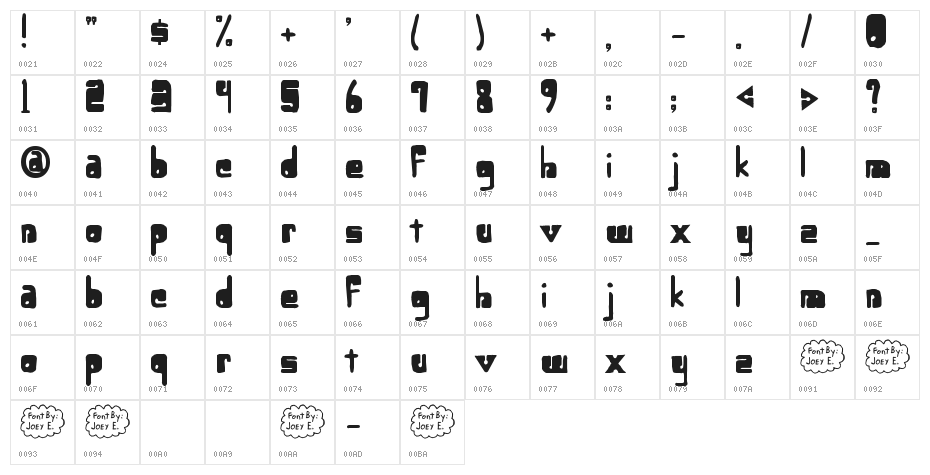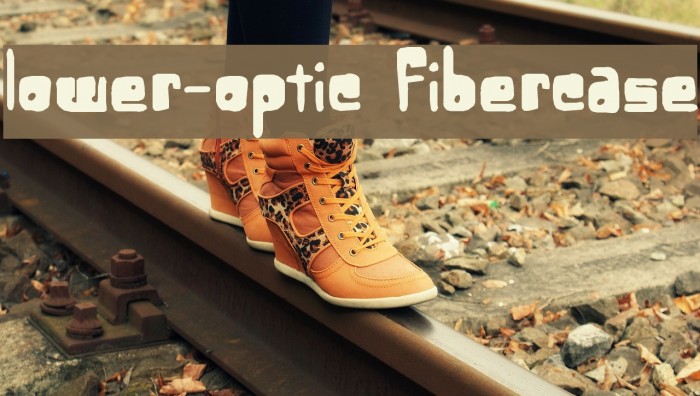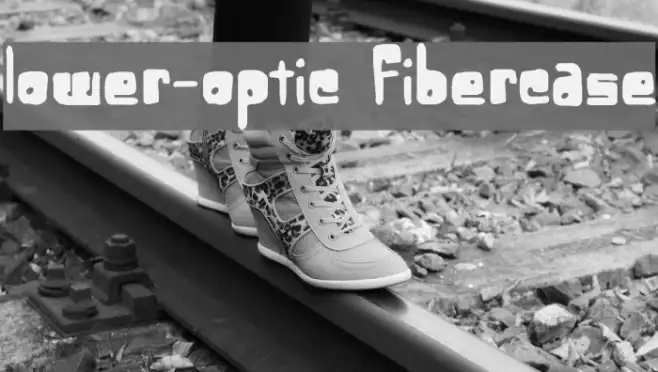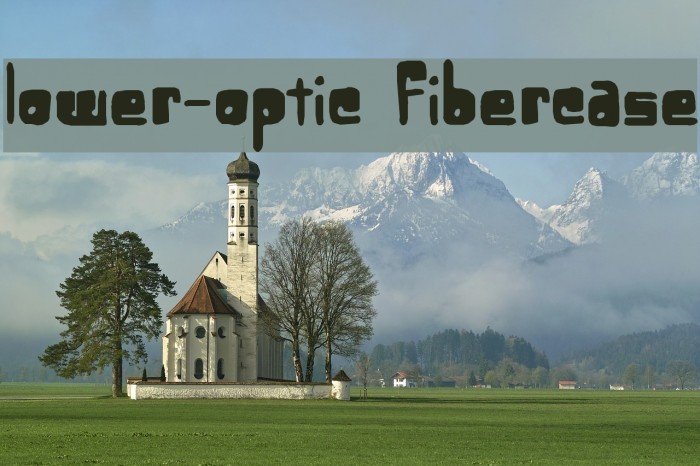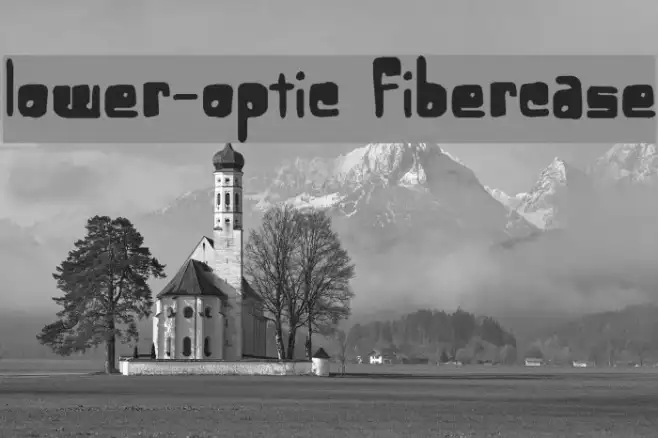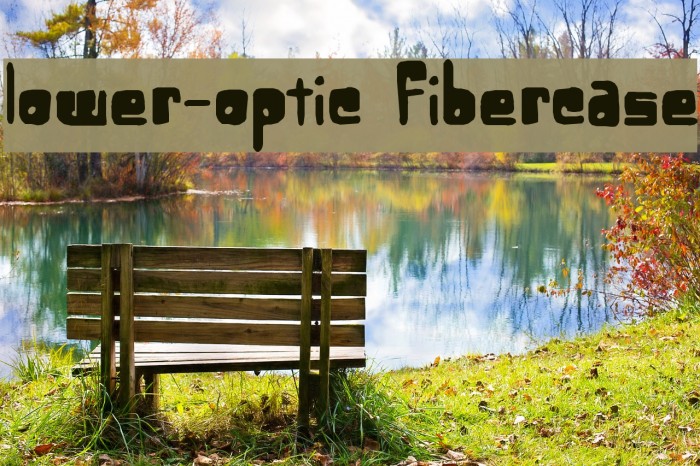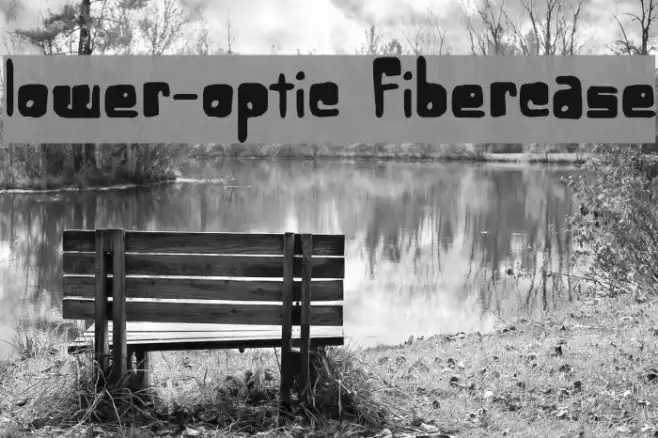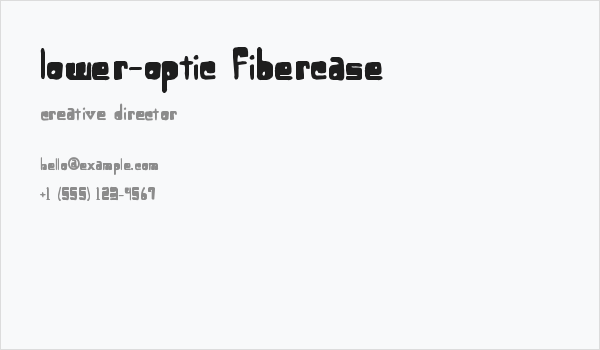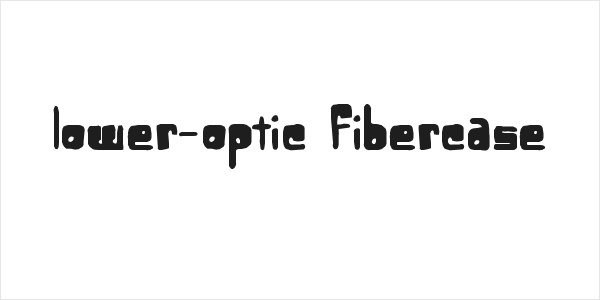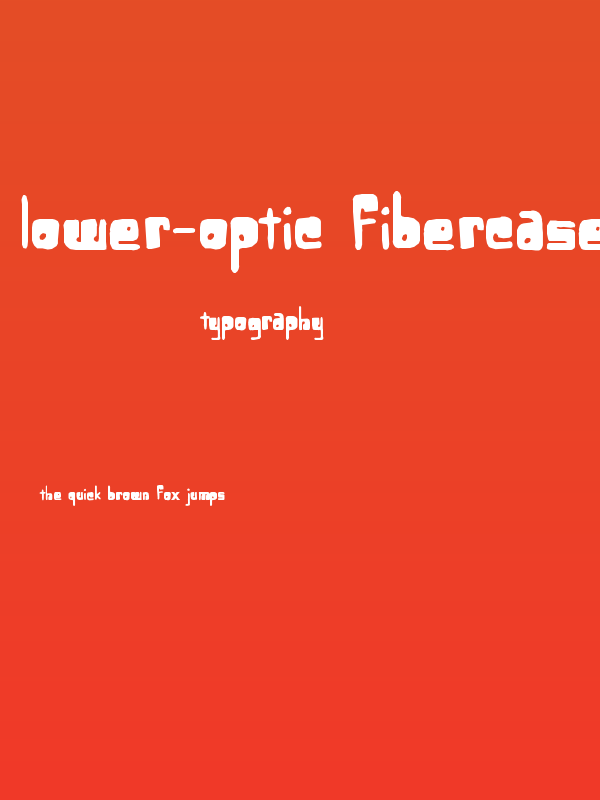
Lower-optic Fibercase Font
Lower-optic Fibercase Description
This font features a bold, playful style with thick, rounded edges and a slightly irregular shape, giving it a hand-drawn appearance. The characters are uniformly bold, creating a strong visual impact. The uppercase and lowercase letters maintain a consistent height, contributing to a cohesive look. Numbers and special characters follow the same design principles, ensuring uniformity across all elements. The font's quirky and artistic nature makes it ideal for creative projects that require a fun and informal touch.
| Overall Style | Playful, Artistic |
| Proposed Projects | Ideal for children's books, comic strips, playful branding, and creative posters. |